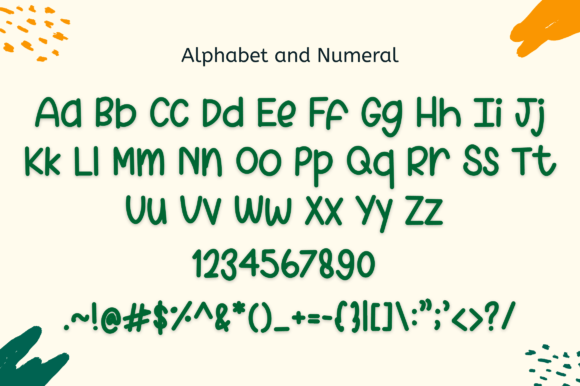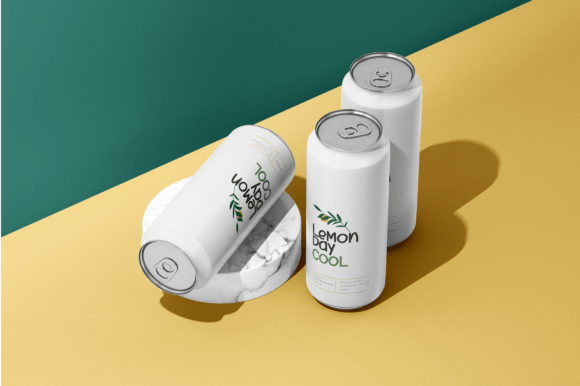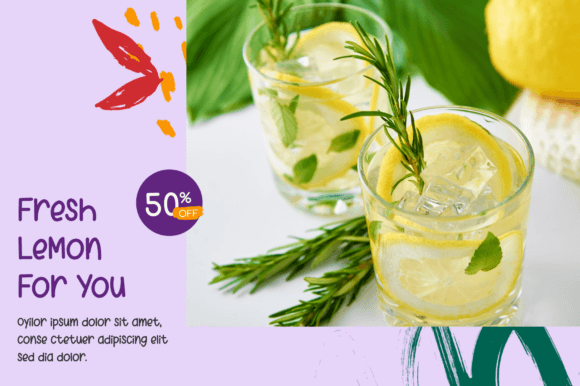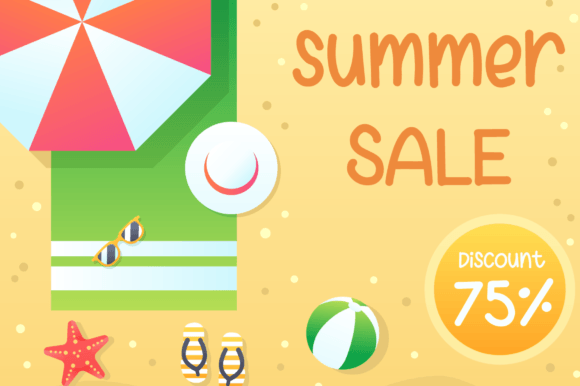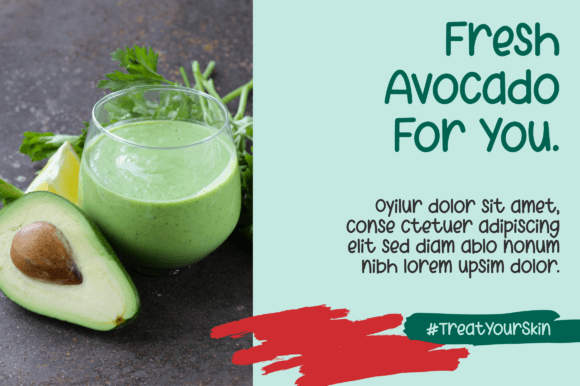
Lemonday Summer Font – Free Download
Introduction to Lemonday Summer Font
Lemonday Summer is a cool handwritten font created with a monoline brush to bring summer feels.
It can be used for various purposes such as logos, headings, t-shirts, letterhead, labels, news, posters, badges, and so much more Very perfect for creating Instagram sale posts, stories, and also campaign products.
Key Features of Lemonday Summer Font